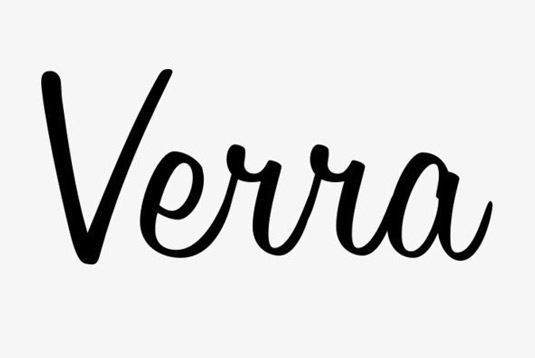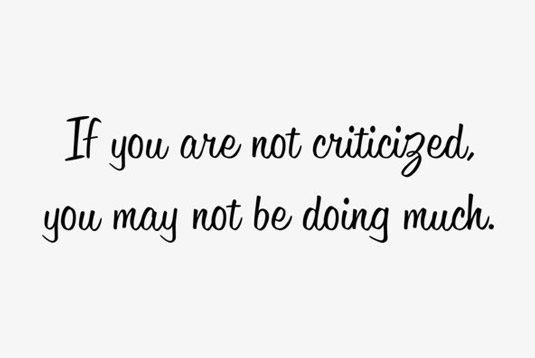
Font of the day: Harmony
Harmony from FilmoType
Originally designed in 1950 by Ray Baker, Harmony was developed from the original font filmstrips. Available from YouWorkForThem, the website states: "Ray Baker designed Harmony as a proof of concept that the Filmotype machine could be used to typeset convincing connecting scripts."